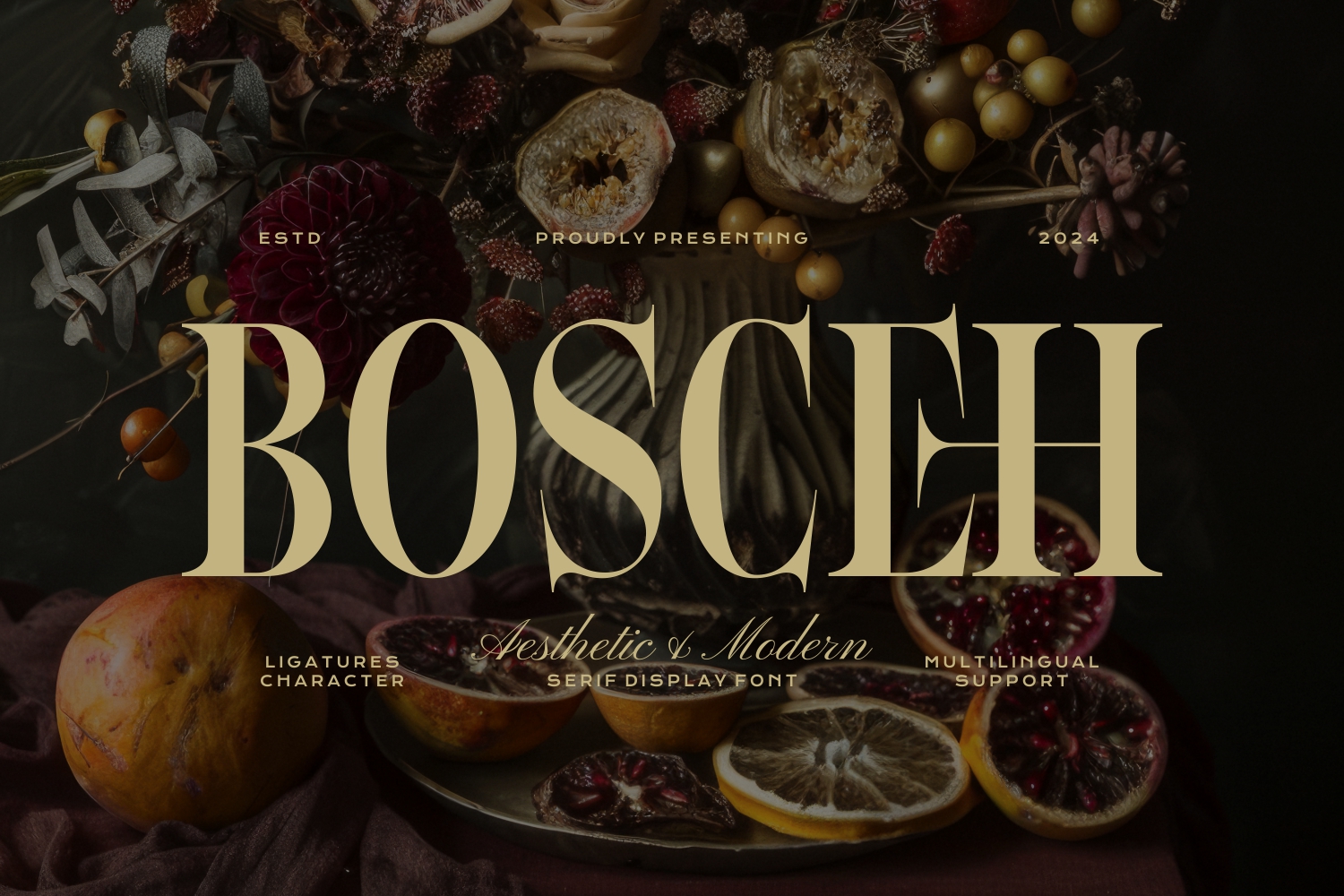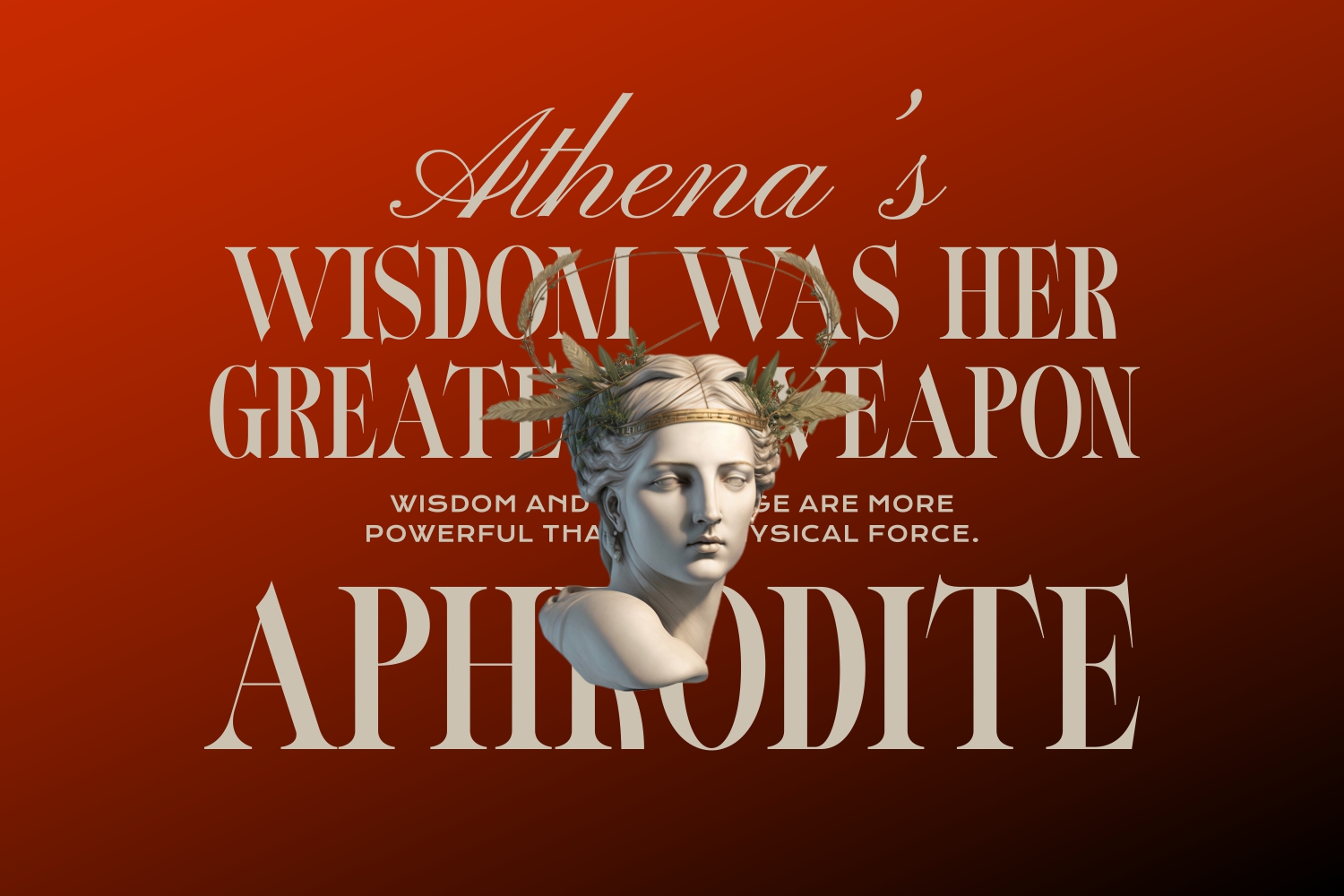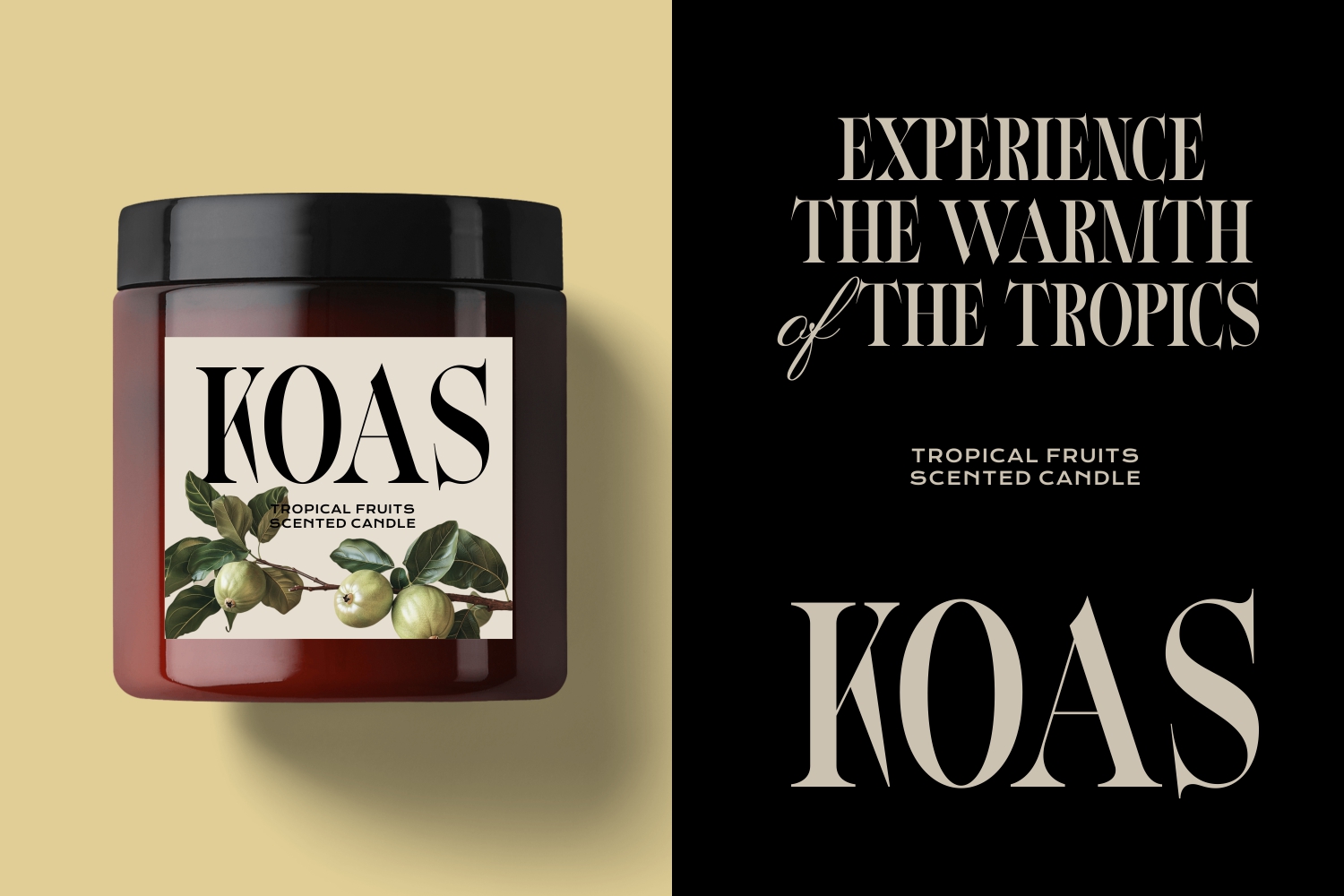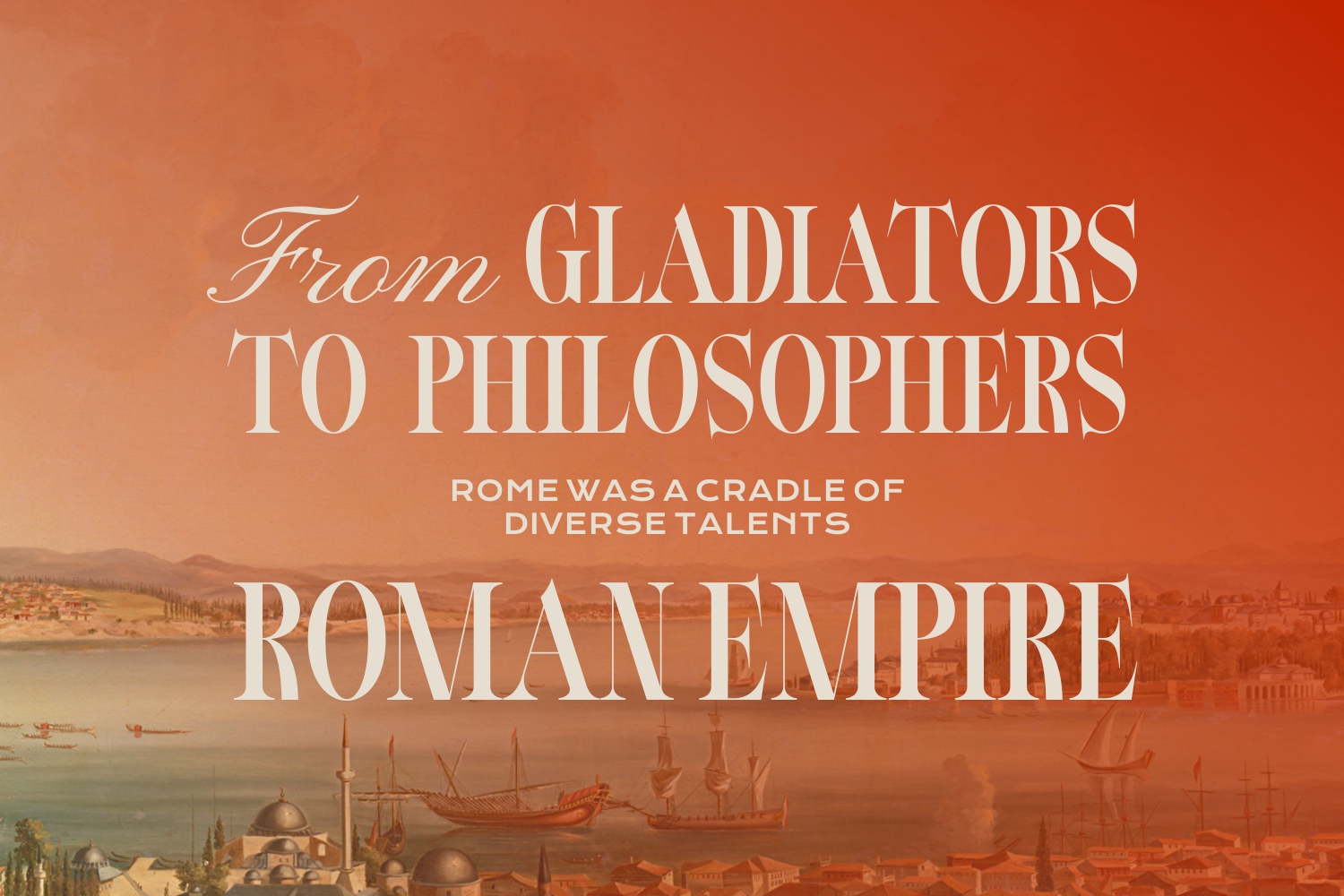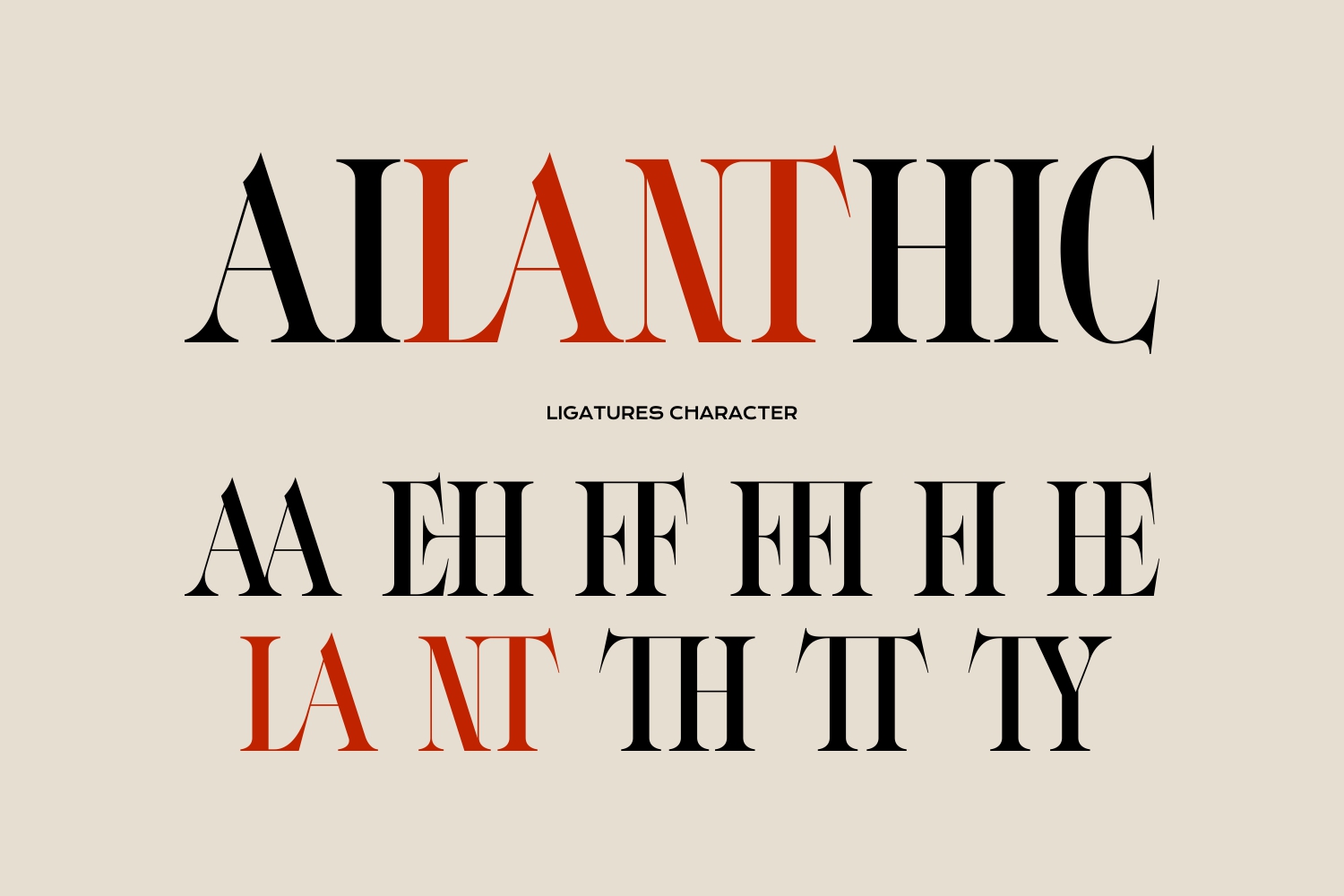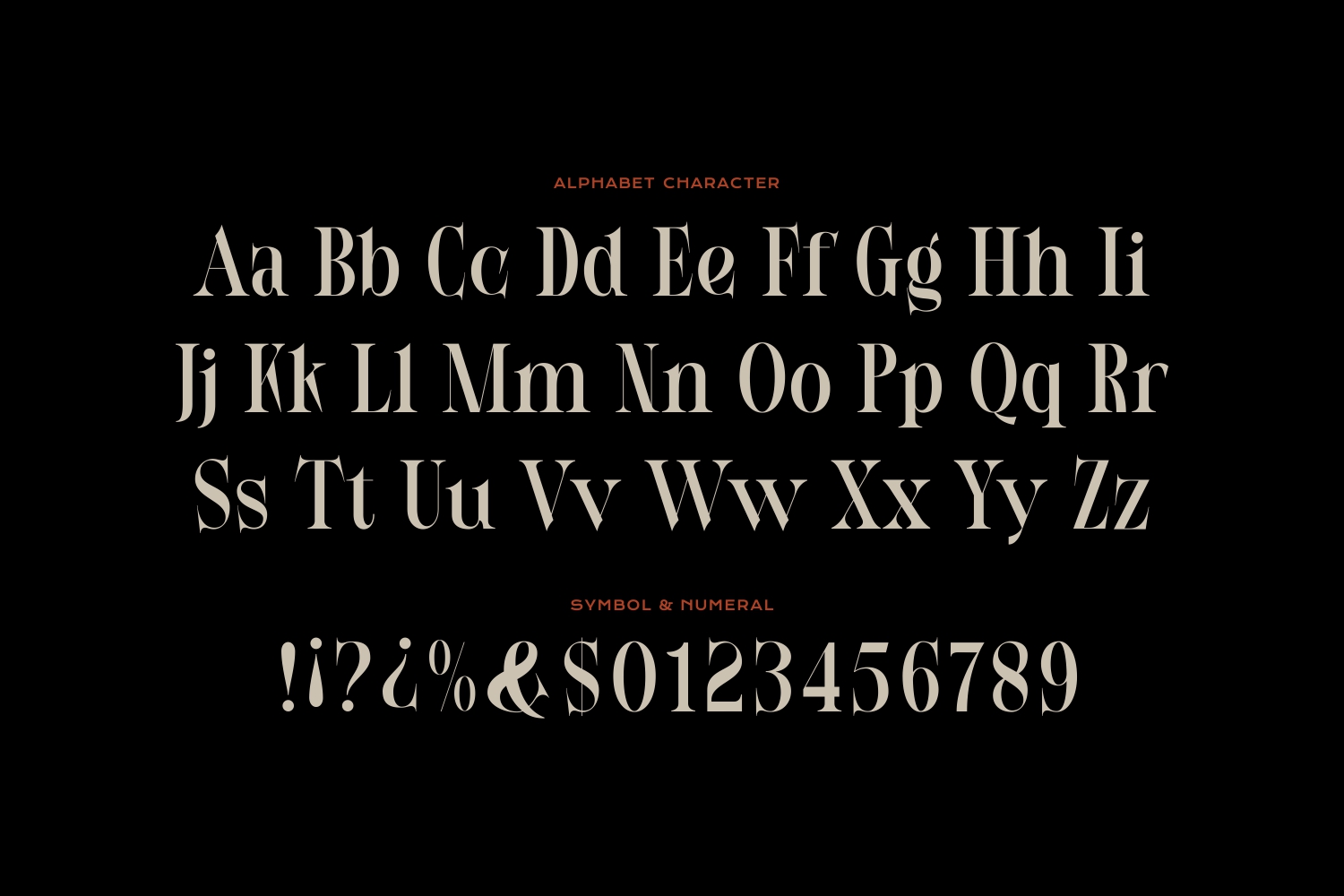
Bosceh is an aesthetic and modern serif display font designed to exude sophistication and bold elegance. Its high-contrast strokes, sharp serifs, and refined proportions create a timeless look that blends classic luxury with contemporary style. Perfectly balanced between strength and grace, Bosceh adds a statement-making presence to any design, whether for branding, editorial layouts, packaging, or artistic posters. The font also features stylish ligatures and multilingual support, making it versatile for global creative projects.
From high-end fashion branding to luxury product packaging, Bosceh brings a touch of refinement and exclusivity to every application. Its intricate details and stylish alternates allow designers to craft unique typographic compositions that captivate and inspire. Whether used for bold headlines or sophisticated logotypes, Bosceh delivers an unforgettable typographic experience that speaks the language of elegance and modernity.